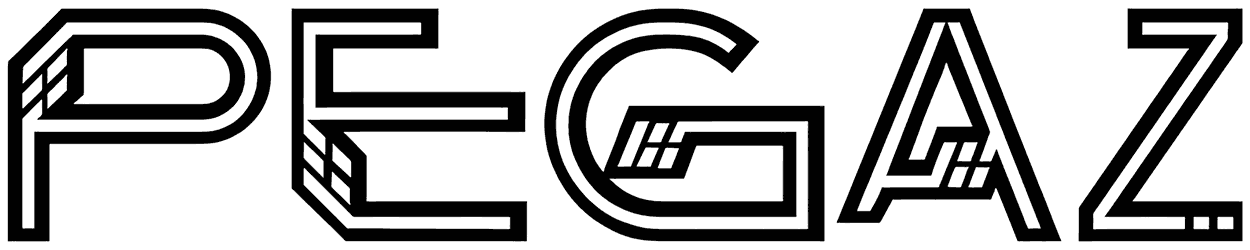
Pegaz Font
Try out Pegaz, a futuristic font, to make your game interfaces, branding, logotypes, and presentations stand out. Without lowercase or numeric characters, two styles of this inline font can elevate your work to the next level. It would be illogical not to at least browse the extensive collection of extremely useful decorative fonts we’ve amassed for our collection.